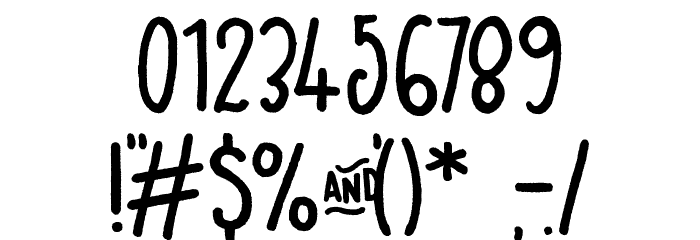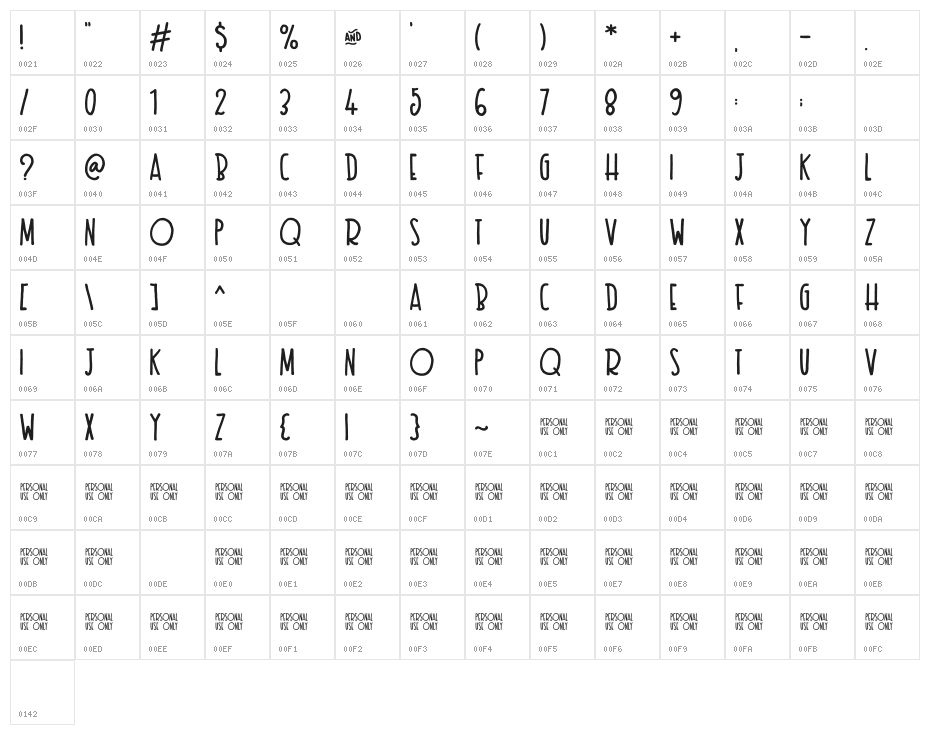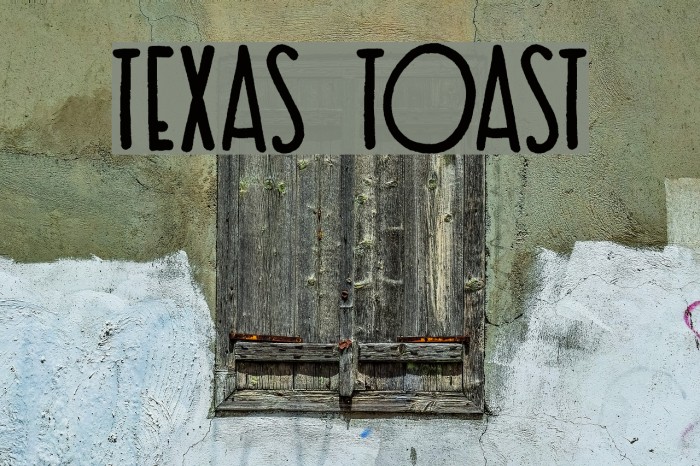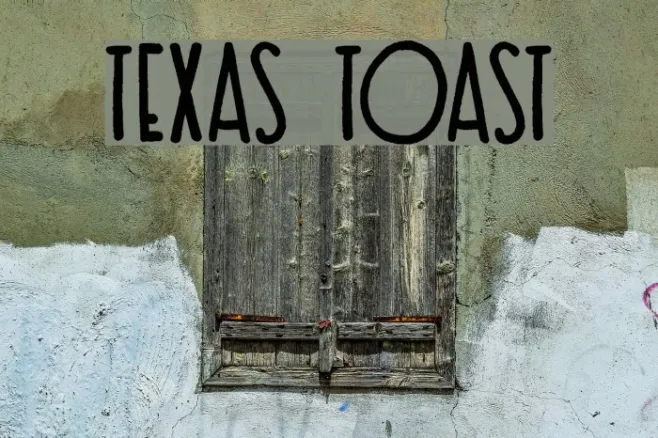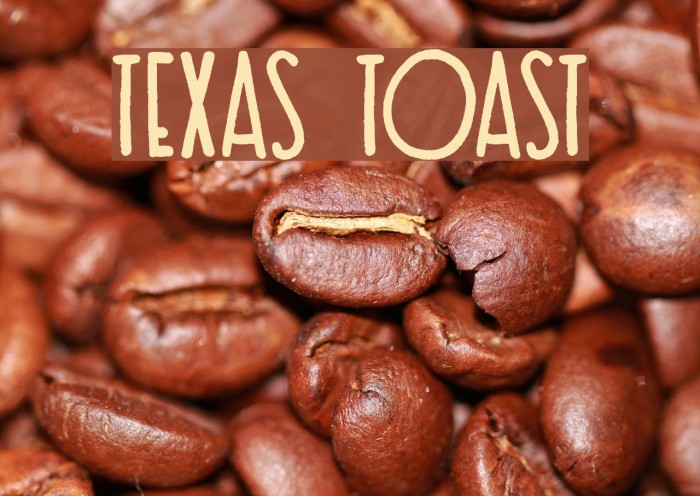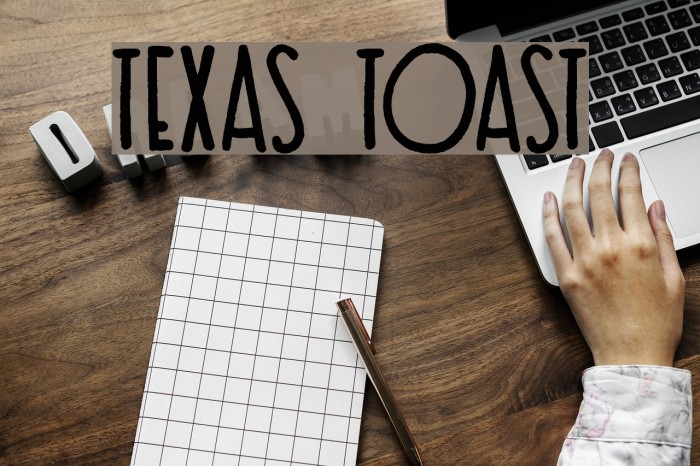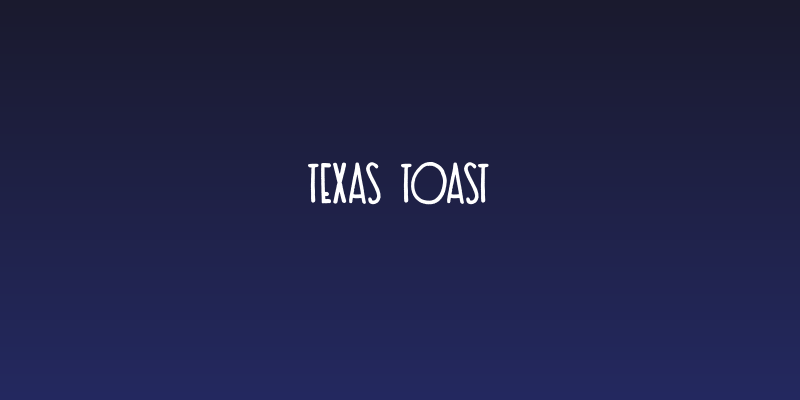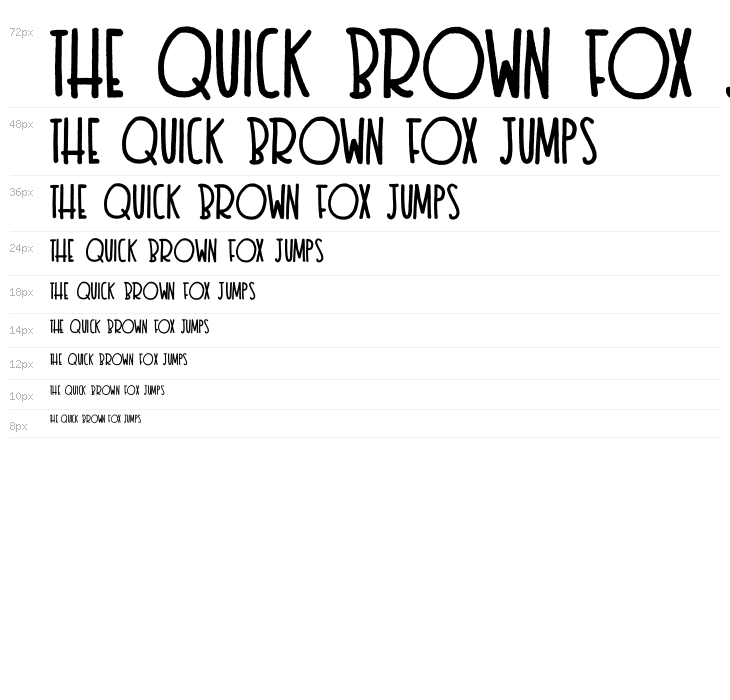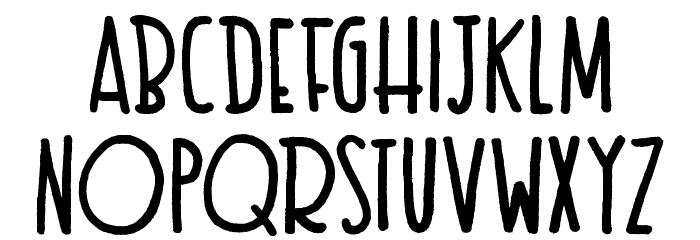
Texas Toast Font
Texas Toast Description
This font features a playful and bold handwritten style, characterized by its thick, uneven strokes and casual appearance. The letters have a slightly irregular baseline, adding to the informal and friendly feel. The uppercase and lowercase letters maintain a consistent style, with rounded edges and a slight slant that suggests movement and energy. The numerals and special characters are crafted with the same playful touch, making them suitable for creative and informal projects. Overall, this font exudes a sense of fun and approachability, making it ideal for designs that aim to be engaging and lively.
| Use Case | Logos, Posters, Invitations |
| Proposed Projects | Great for children's books, playful branding, casual invitations, and creative posters. |